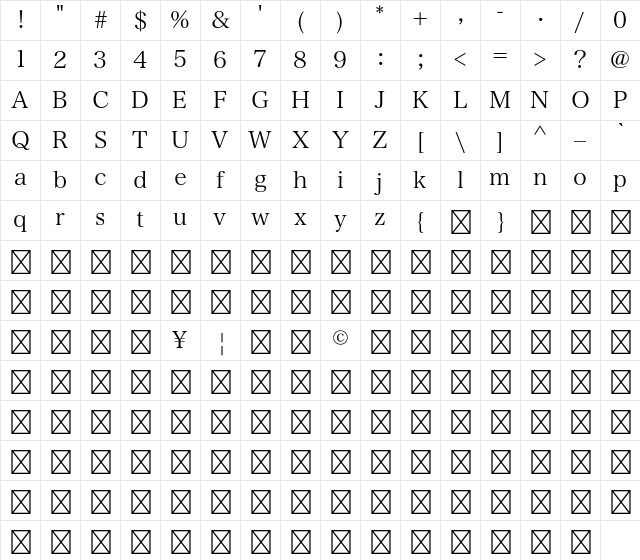
Yutuki 36PoKana Std W2
Style: W2
Foundry: Dainippon Screen Mfg. Co., Ltd.
Designer: JIYUKOBO Ltd.
Design Context for Yutuki 36PoKana Std
Yutuki 36PoKana Std is a composed and adaptable typeface that performs quietly and consistently across a wide range of design contexts.